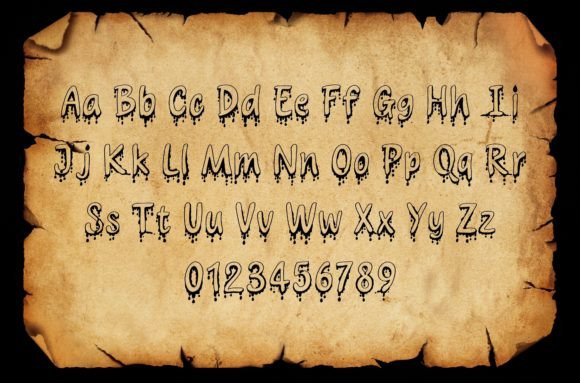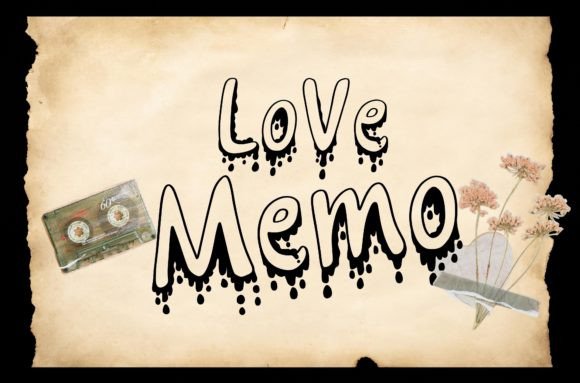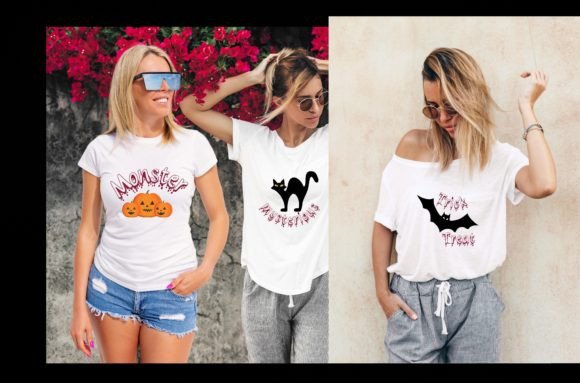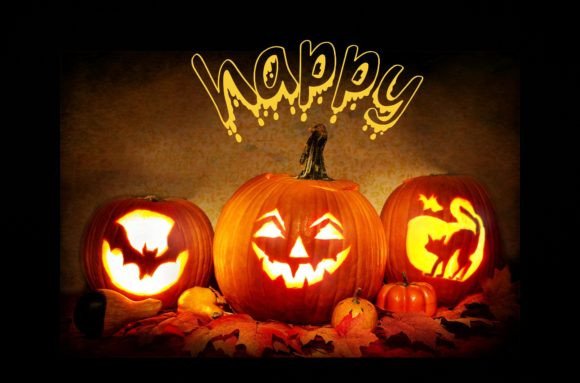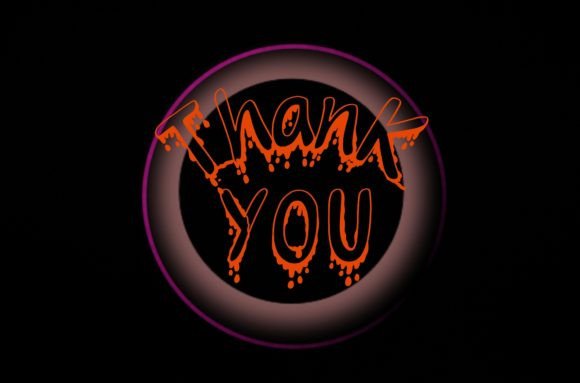
Introduction to Halloween Drip Font
As designers, we’ve all had those moments when a single element brings our creative project to life. For me, it was the first time I saw a spooky logo with the Halloween Drip Font. The way the dripping blood-like letters seemed to ooze across the screen, adding a touch of eeriness to the design, was pure magic. It was one of those moments when you know you’ve found a game-changer – a design resource that elevates your work to the next level.
Whether you’re working on a Halloween-themed project or simply want to add a touch of spooky flair to your branding, the Halloween Drip Font is an essential addition to your toolkit. With its high-quality design and transparent background, this free download is perfect for designers looking to create eye-catching and memorable designs.
Key Features of Halloween Drip Font
- Unique, spooky design perfect for Halloween-themed creative projects
- High-quality font with transparent background, ideal for layered designs
- Perfect for designers looking to add a touch of eeriness to their designs, ideal for creative projects
Honest Review: Halloween Drip Font
I recently had the chance to play around with the Halloween Drip Font, and I must say, it’s a great addition to any designer’s toolkit. This font is perfect for those looking to add a spooky vibe to their creative project.
- High-quality design: The Halloween Drip Font is crisp and clean, making it perfect for print or digital use.
- Transparent background: This allows for easy layering and manipulation in design software.
⚠️ Limitations:
- Not suitable for long-form text: The font is best used for short phrases or titles, as it can become difficult to read in large blocks of text.
- Not as versatile as other fonts: While it’s perfect for Halloween-themed projects, it may not be the best choice for other types of creative projects.
Overall, I’m really impressed with the Halloween Drip Font. It’s a great resource for designers looking to add a little spooky flair to their work. If you’re working on a Halloween-themed project, I highly recommend giving it a try.
Halloween Drip Font
The Halloween Drip Font is a high-quality design resource perfect for creating spooky and eerie effects in your creative projects. With its unique and intricate design, this font is sure to add a touch of sophistication and mystery to your work.
Getting the Most Out of It
To get the most out of the Halloween Drip Font, experiment with different text sizes, colors, and layering techniques. You can also combine the font with other design elements, such as images and graphics, to create a unique and eye-catching effect.
The Halloween Drip Font is perfect for a variety of creative projects, including:
- Halloween-themed designs and decorations
- Spooky and eerie advertisements
- Haunted house and attraction designs
- Creepy and mysterious posters